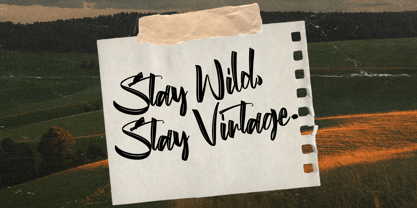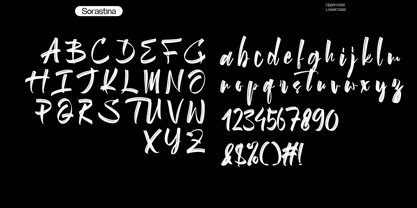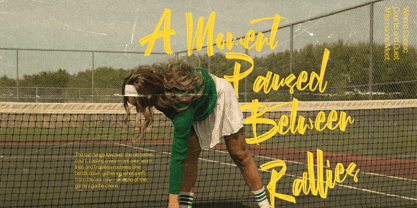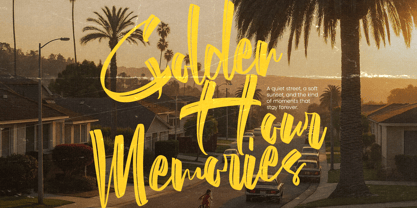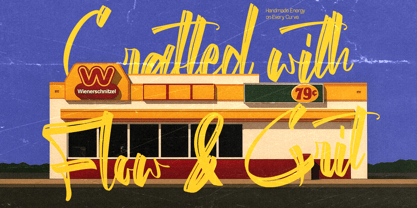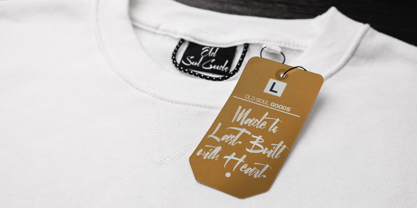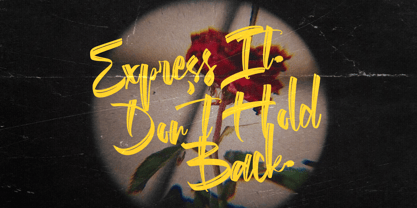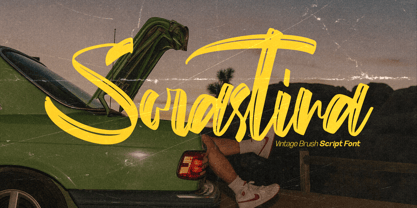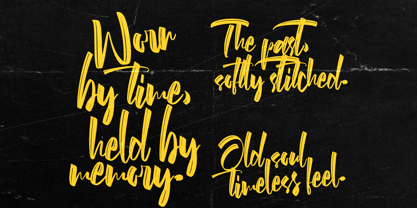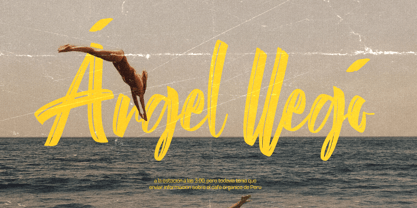
Sorastina
by Inviline
The Sorastina Font Family was designed by Virgiawan Listanto and published by Inviline. Sorastina contains 1 styles. More about this family
Sorastina is a vintage brush script font that brings nostalgic charm to modern design. With bold strokes, expressive curves, and a handcrafted touch, it evokes a retro vibe perfect for storytelling. What you get is a complete set of uppercase, lowercase, numerals, punctuation, and multilingual support—all packed with energy and flow to give your work character and soul. This font is perfect for branding, retro posters, travel content, summer campaigns, apparel graphics, or any design that craves a dash of vintage warmth and handwritten authenticity. Whether you're designing logotypes or capturing golden-hour moods, Sorastina makes every word feel alive and memorable.
Designers: Virgiawan Listanto
Foundry: Inviline